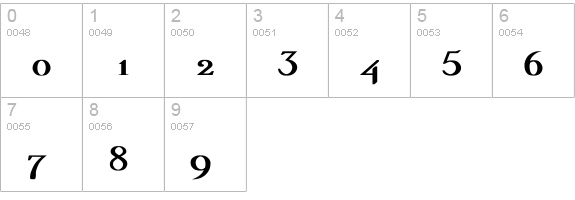
Dickens Wd Bold Font Details
Dickens Wd Bold is a strong, high-contrast variant in the Dickens typeface family \xE2\x80\x94 well suited to headlines, attention-grabbing titles, and strong calls-to-action.
Dickens Wd Bold font is a striking and bold typeface that exudes a sense of classic elegance and sophistication. With its distinctive thick strokes and vintage charm, this font is perfect for creating eye-catching headlines, titles, and logos that demand attention. The timeless appeal of Dickens Wd Bold font makes it a versatile choice for various design projects, from posters and packaging to branding and editorial design. Its bold presence on the page commands respect and adds a touch of drama to any visual composition. Best of all, Dickens Wd Bold font is available for free download at FontsMarket.com. This means you can add this stylish and impactful typeface to your font collection without any cost, making it an excellent choice for designers looking to elevate their work without breaking the bank. Don't miss out on the opportunity to enhance your designs with the timeless elegance of Dickens Wd Bold font.